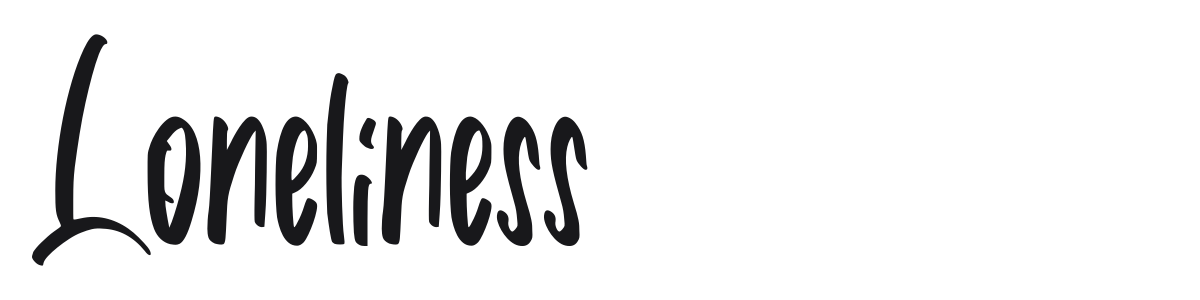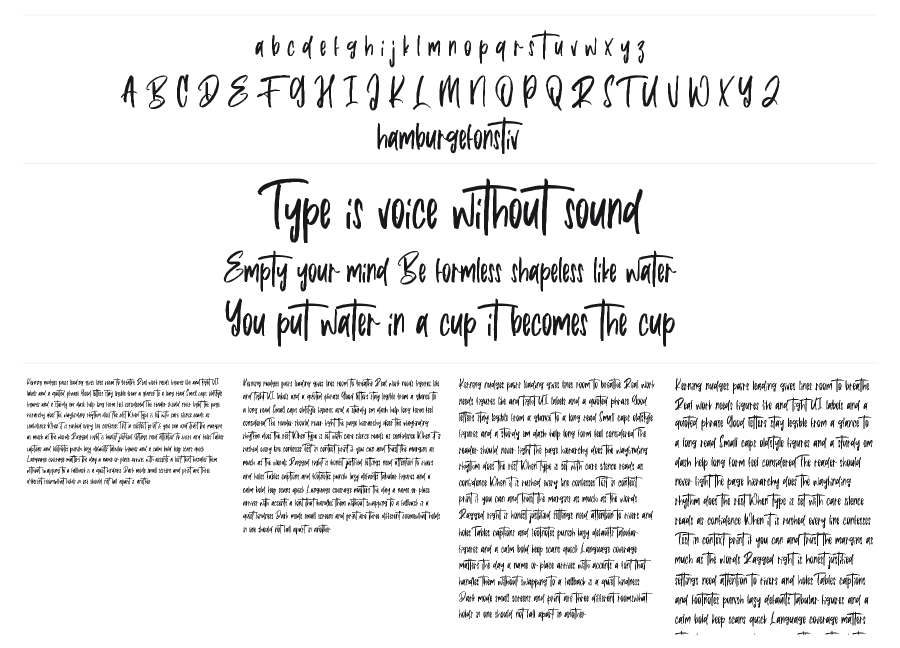
Loneliness
Loneliness is a casual upright script with the loose, confident energy of hand-lettered signage. Its lightly irregular baseline and flowing connected strokes feel natural without being sloppy. Works well on packaging, social graphics, and anywhere a human touch is needed.